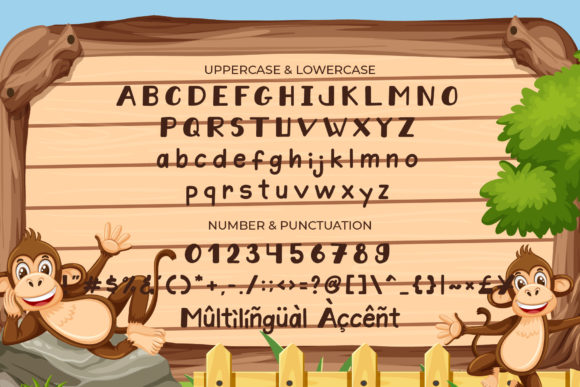
Introduction to Planet Monkey Font
Have you ever been working on a creative project, pouring your heart and soul into it, and then suddenly, something is missing? That’s when you know it’s time to add a little magic to your design. For me, that magic often comes in the form of a high-quality display font that can instantly elevate my ideas and make them stand out. And today, I’m excited to introduce you to the perfect addition to your design resource library: the Planet Monkey Font.
This adorable and quirky font is more than just a pretty face – it’s a game-changer for designers looking to add a touch of whimsy and joy to their projects. Whether you’re creating a digital product, a social media graphic, or a website design, the Planet Monkey Font is sure to bring a smile to your face and make your design shine.
Key Features of Planet Monkey Font
- Unique and quirky design, perfect for creative projects requiring a playful touch.
- Features a range of 72 characters, including uppercase and lowercase letters, numerals, and punctuation marks.
- Perfect for use in digital design, print media, and web design projects requiring a fun and creative touch.
Honest Review: Planet Monkey Font
I recently stumbled upon the Planet Monkey Font, and I must say it’s been a game-changer for my creative projects. This high-quality font is a valuable addition to any designer’s toolkit.
- ✨ Unique and quirky design that adds a touch of personality to any text
- ✨ Great for creating eye-catching headings and titles
However, I do have to mention a few limitations:
- ⚠️ Limited character set, which may be a concern for designers working on long-form content
- ⚠️ Not suitable for body text, as it can be quite difficult to read in large quantities
Overall, I’m really impressed with the Planet Monkey Font. It’s a fantastic design resource that adds a touch of whimsy and creativity to any project. While it may have some limitations, it’s definitely worth considering for your next design project.
Tips for Getting the Most Out of Planet Monkey Font
Use the Planet Monkey Font with a transparent background to create a modern and sleek design. Experiment with different font sizes and styles to add a creative touch to your project. You can also combine the font with other design elements to create a unique and eye-catching design.